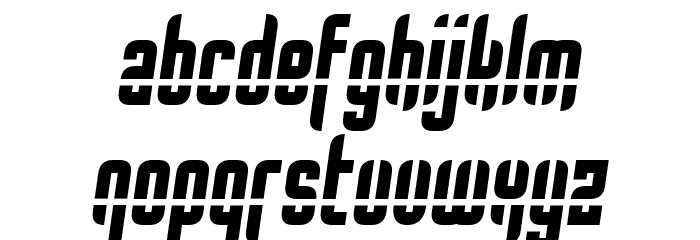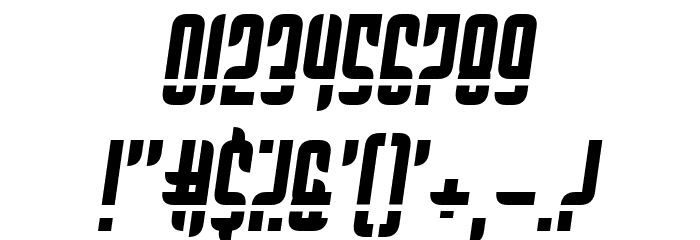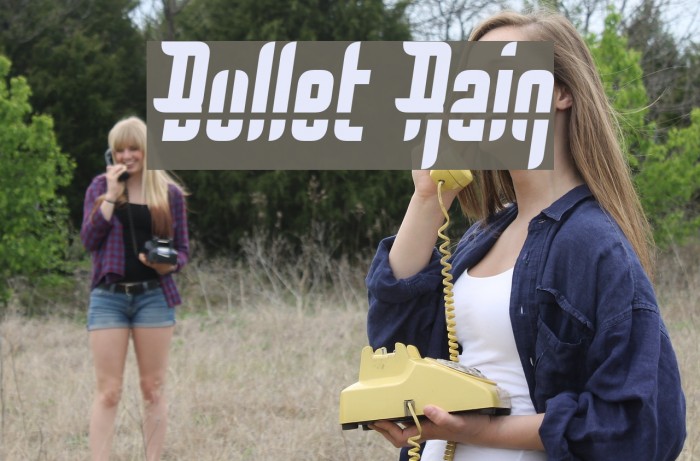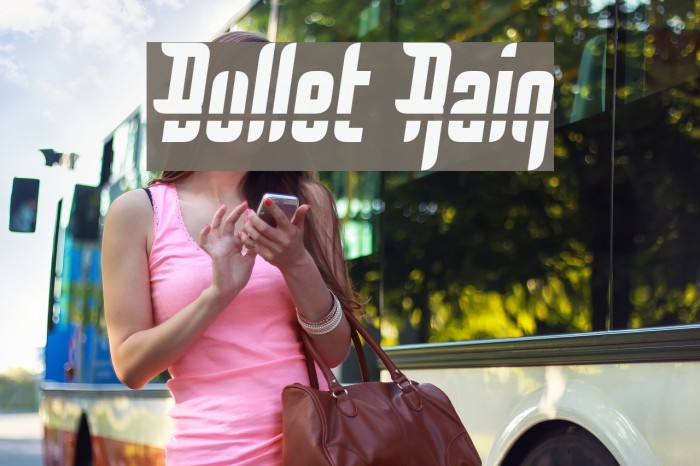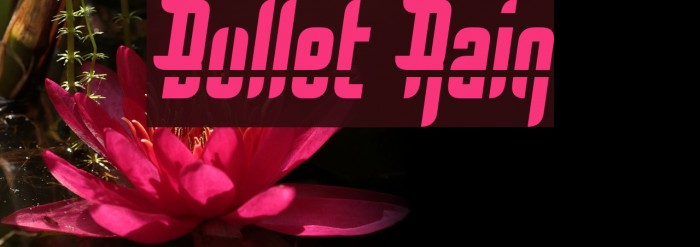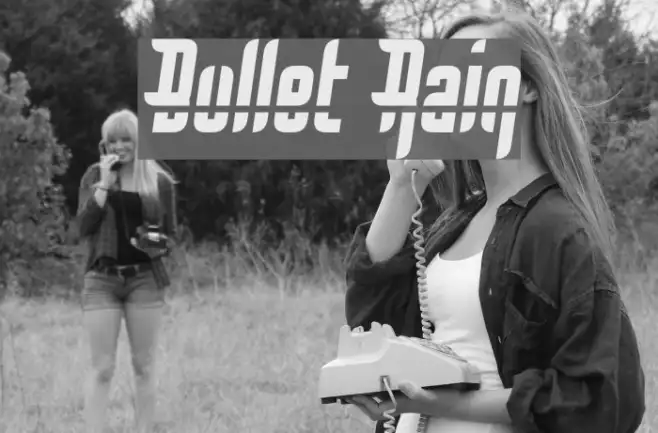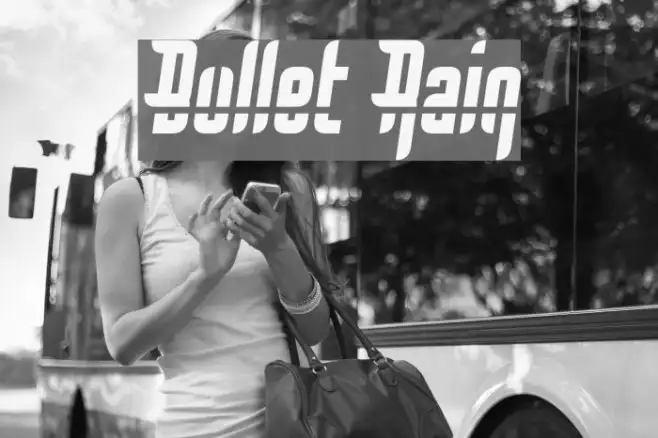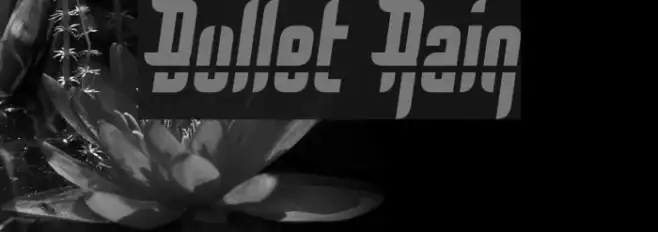
Bullet Rain Font
This font features a bold and modern design with a distinct futuristic flair. The characters are constructed with a unique split design, where each letter appears to be divided horizontally, creating a dynamic and eye-catching effect. The strokes are thick and consistent, contributing to a strong visual impact. The uppercase and lowercase letters maintain a cohesive style, with rounded edges and a slightly condensed form. Numbers and special characters follow the same design principles, ensuring uniformity across all glyphs. This font is ideal for projects that require a contemporary and edgy look.
A bold, modern font with a unique split design and futuristic appeal.
- Proposed Projects: Ideal for branding, posters, album covers, and digital media that require a modern and striking appearance.